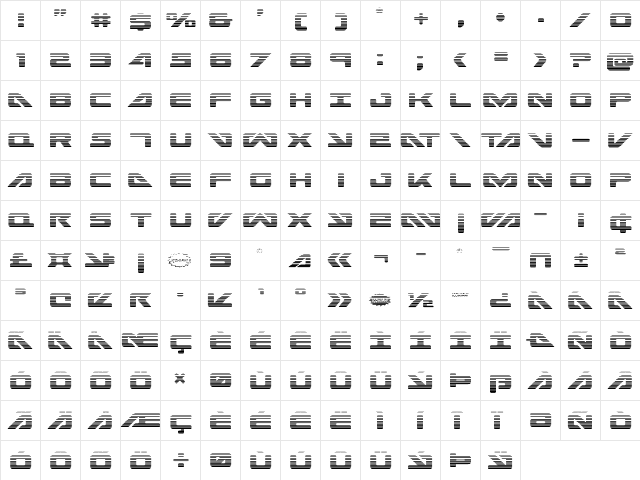
Sea-Dog Gradient Regular
Design Context for Sea-Dog Gradient Typeface
Sea-Dog Gradient is a composed and adaptable typeface that performs quietly and consistently across a wide range of design contexts.